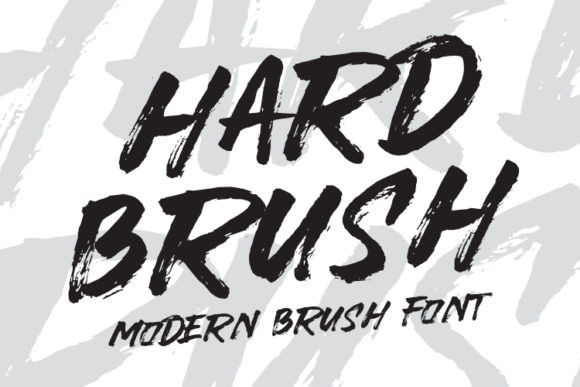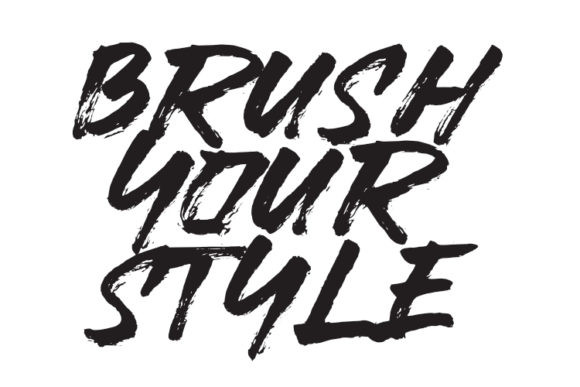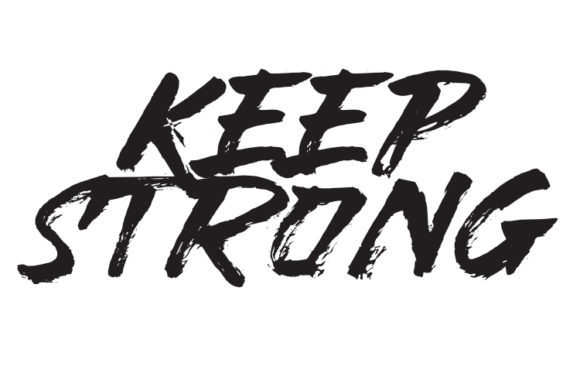
Hardbrush Font
Hardbrush features raw brushstrokes and untamed energy that will perfectly translate across a wide range of designs. This display font is a true must-have.